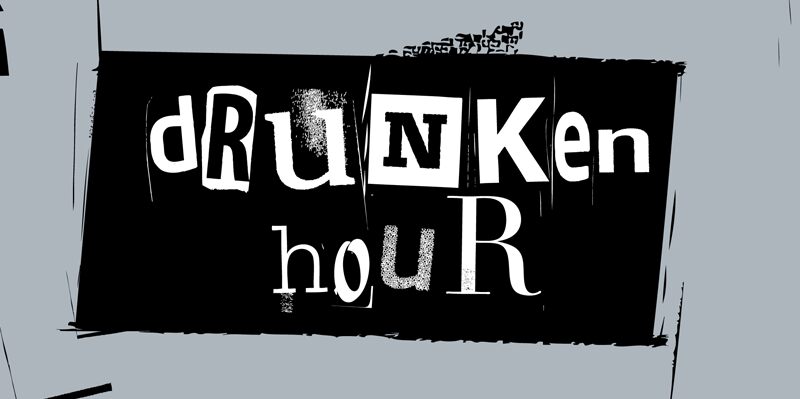
Drunken Hour by Pizzadude is a captivating display font that exudes a sense of distorted, unruly charm. With its jagged, irregular letterforms and a bold, unapologetic presence, this typeface evokes a captivating blend of chaos and character. The font's striking visual appeal immediately commands attention, making it an ideal choice for projects seeking to convey a distinct, unconventional aesthetic.
Drunken Hour's versatility extends across a wide range of design applications, from eye-catching event posters and album covers to bold typographic treatments in branding and packaging. Its dynamic, almost unhinged appearance lends itself particularly well to projects that require a bold, provocative visual statement, such as in the realm of experimental art, music, or youth-oriented design.